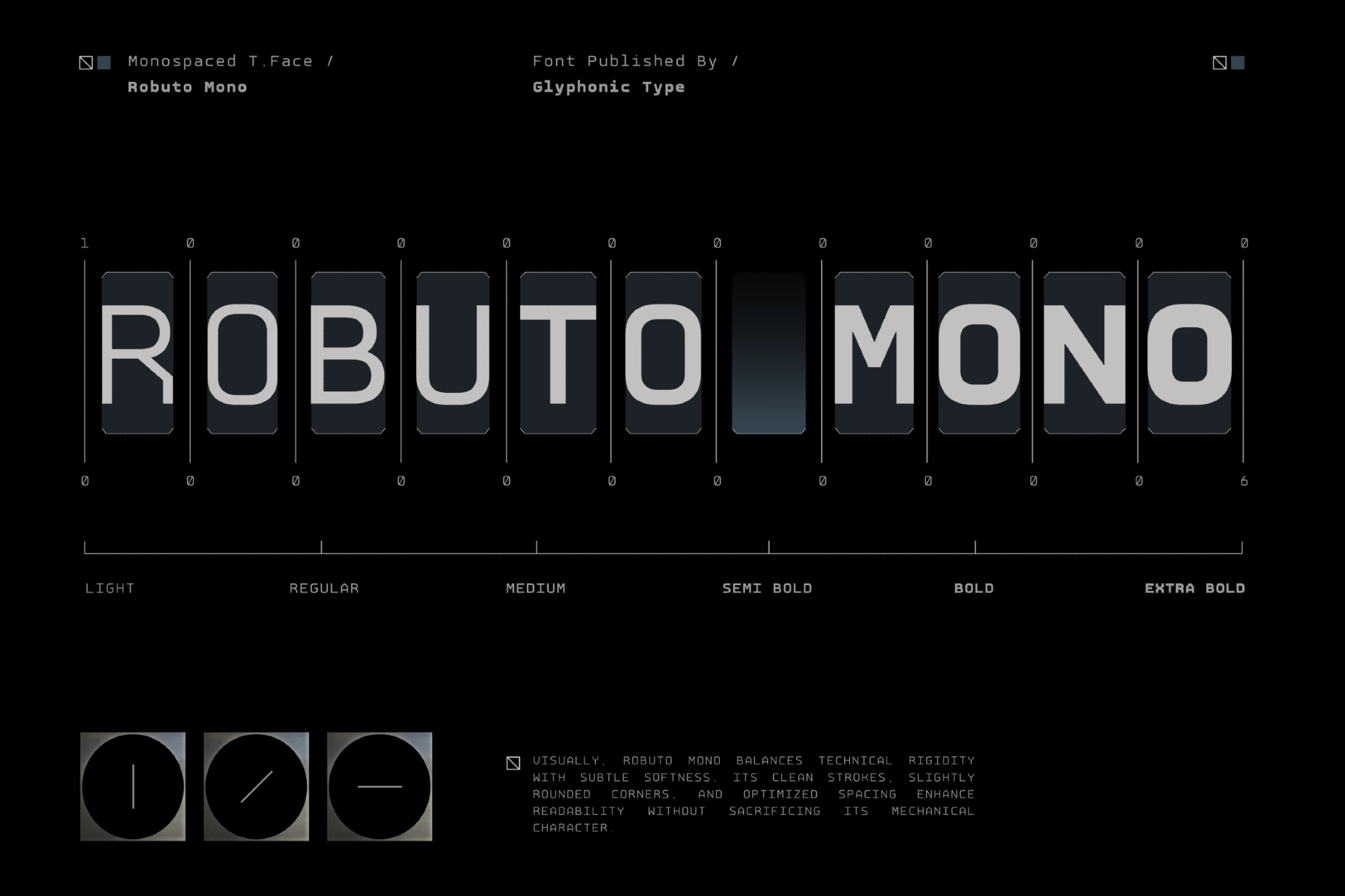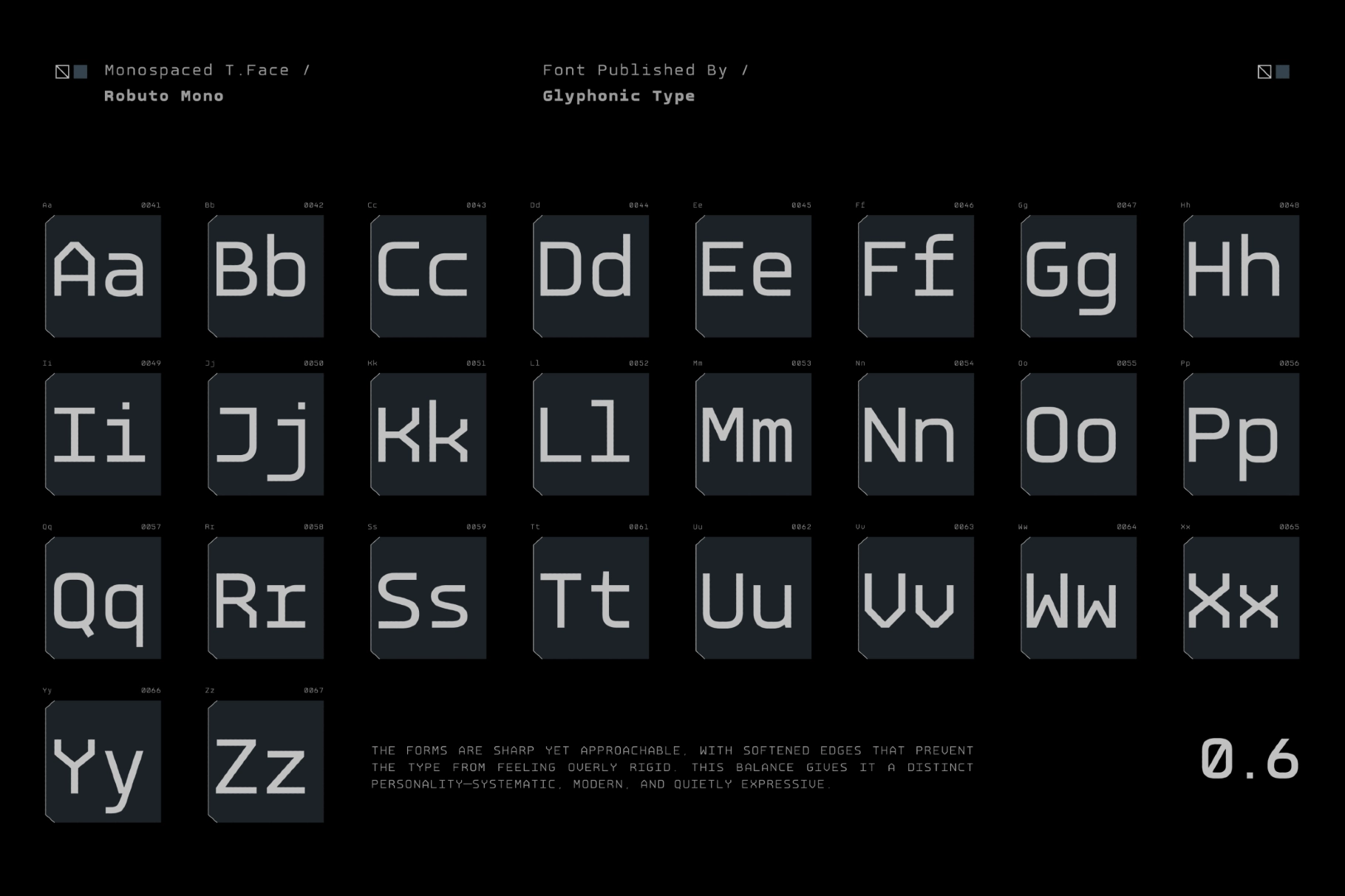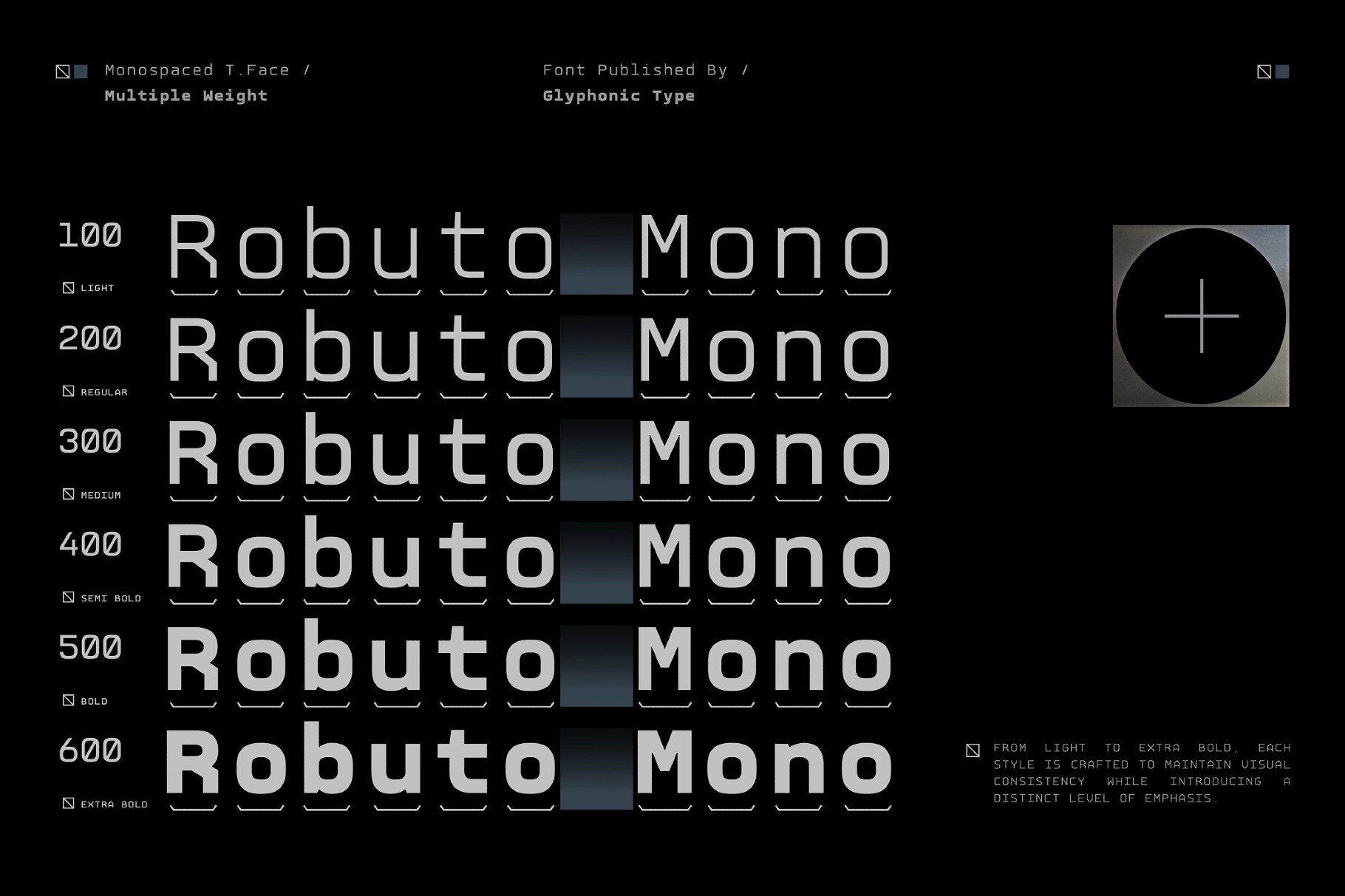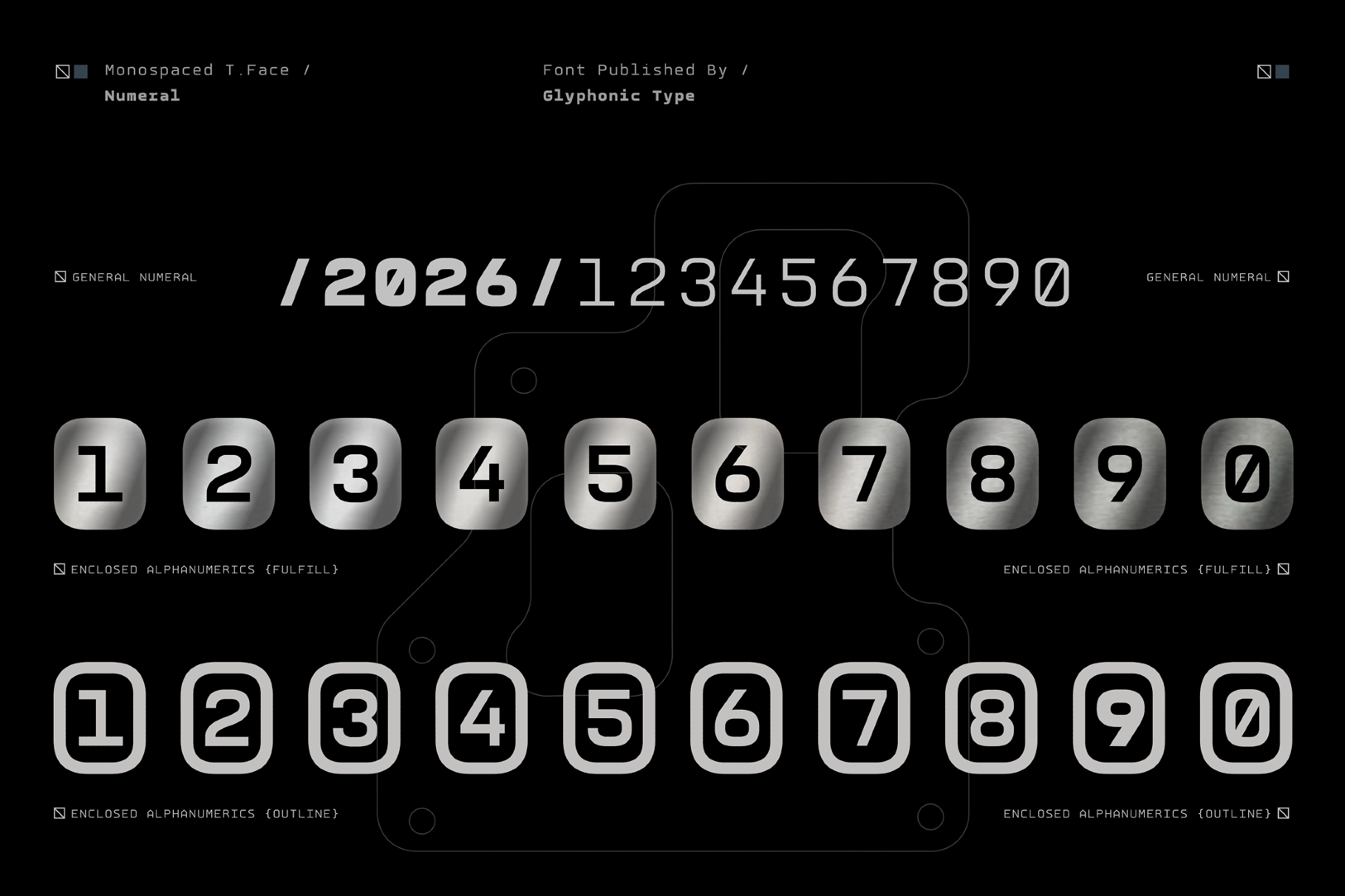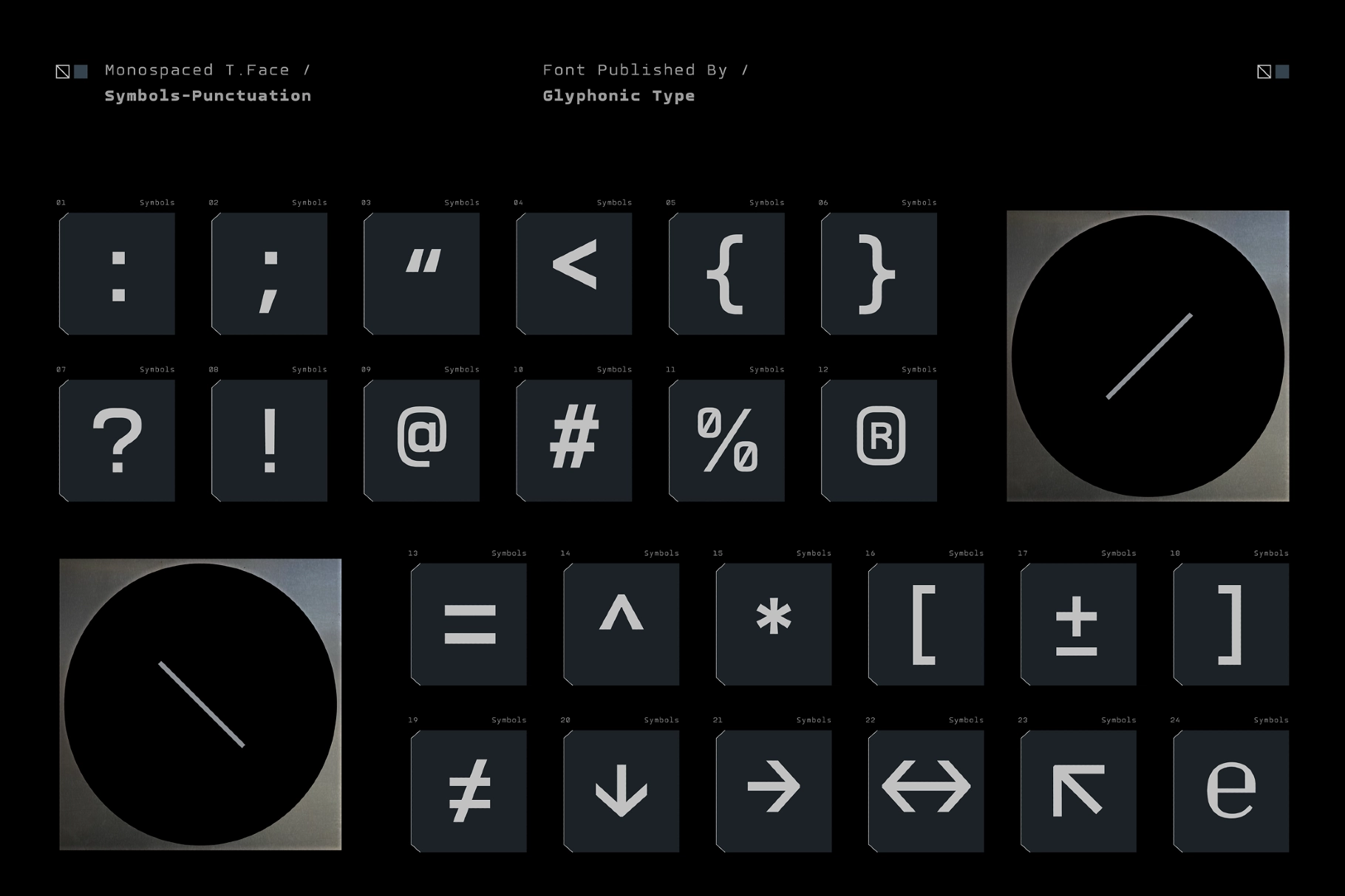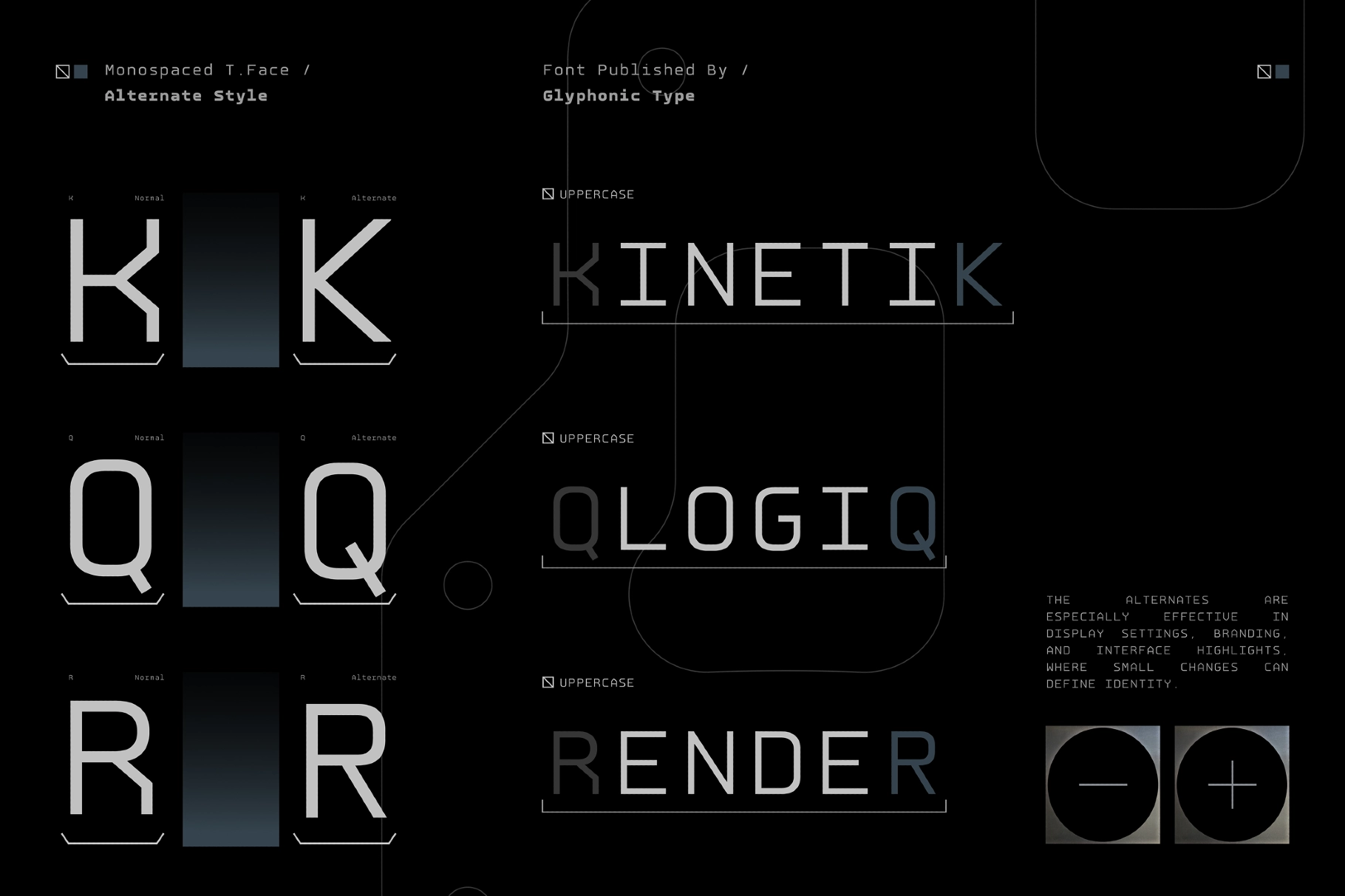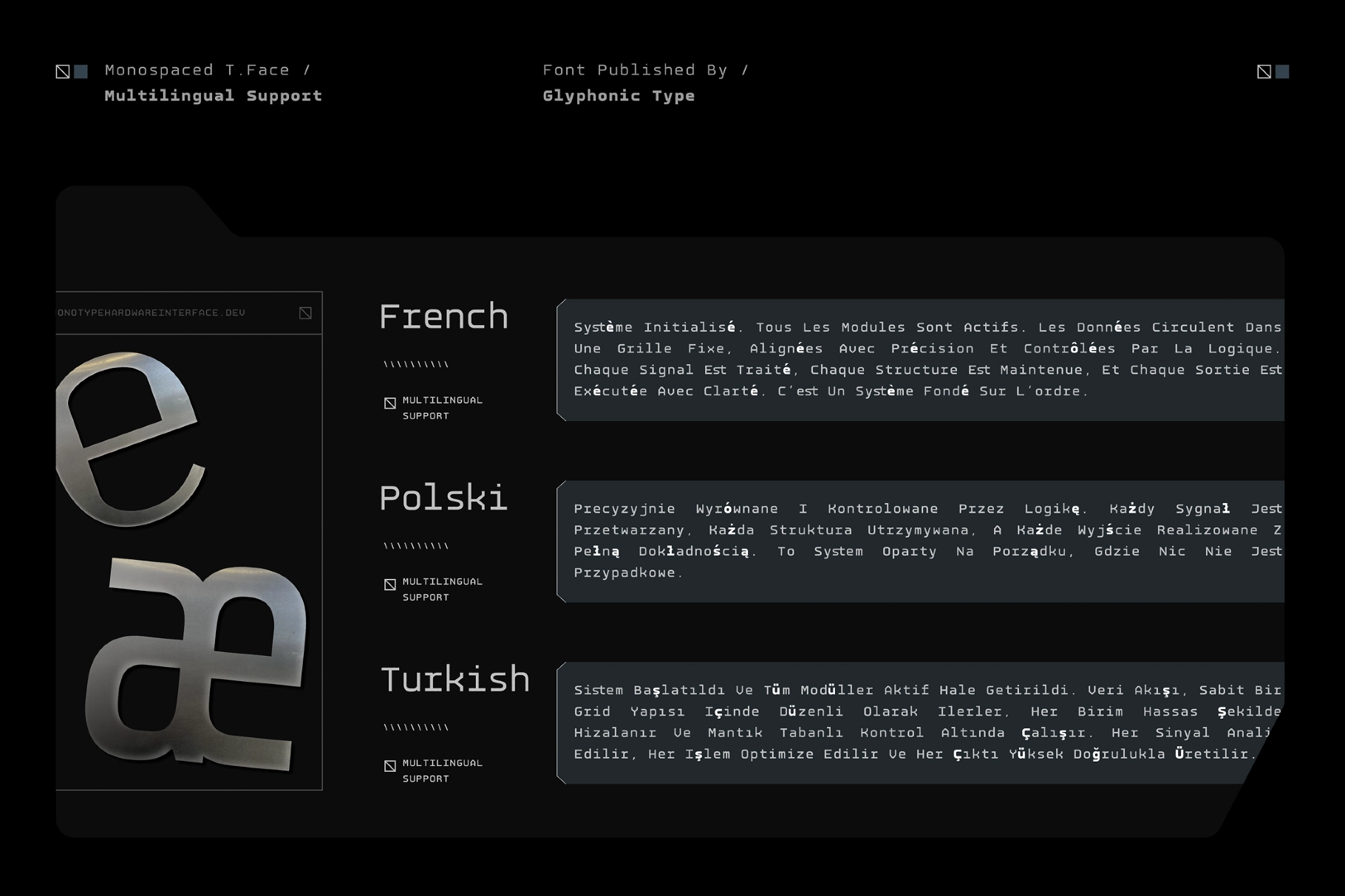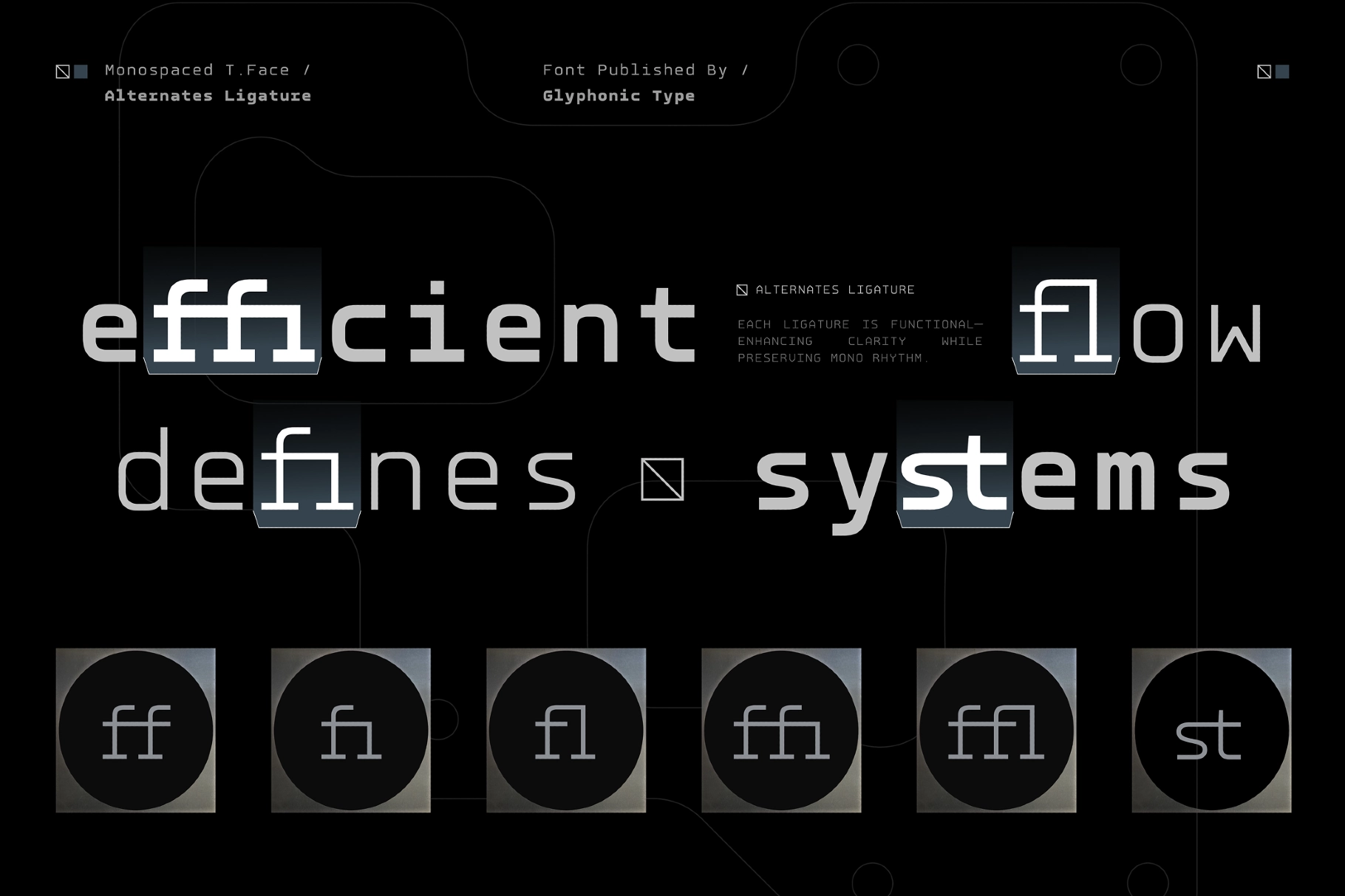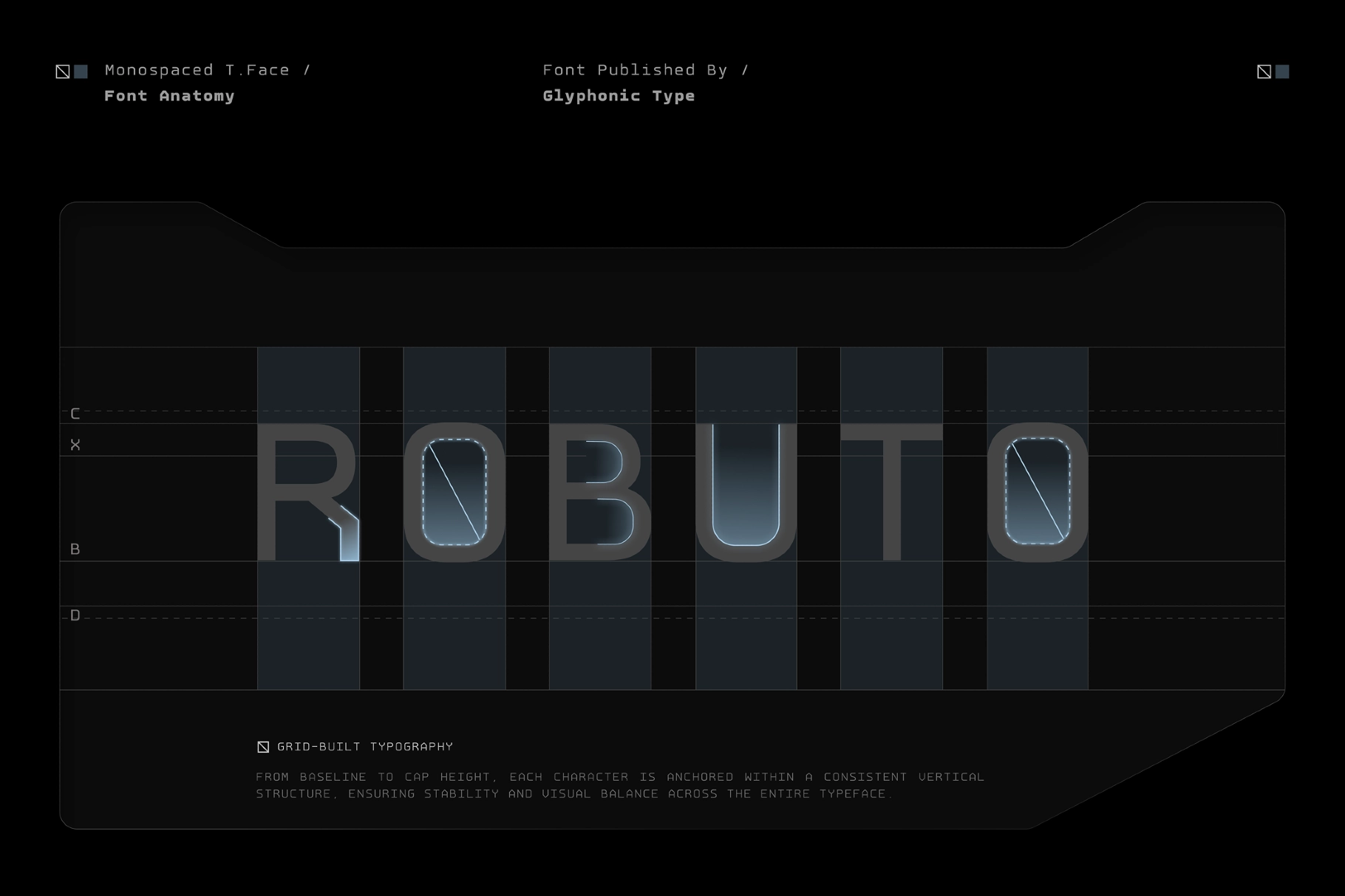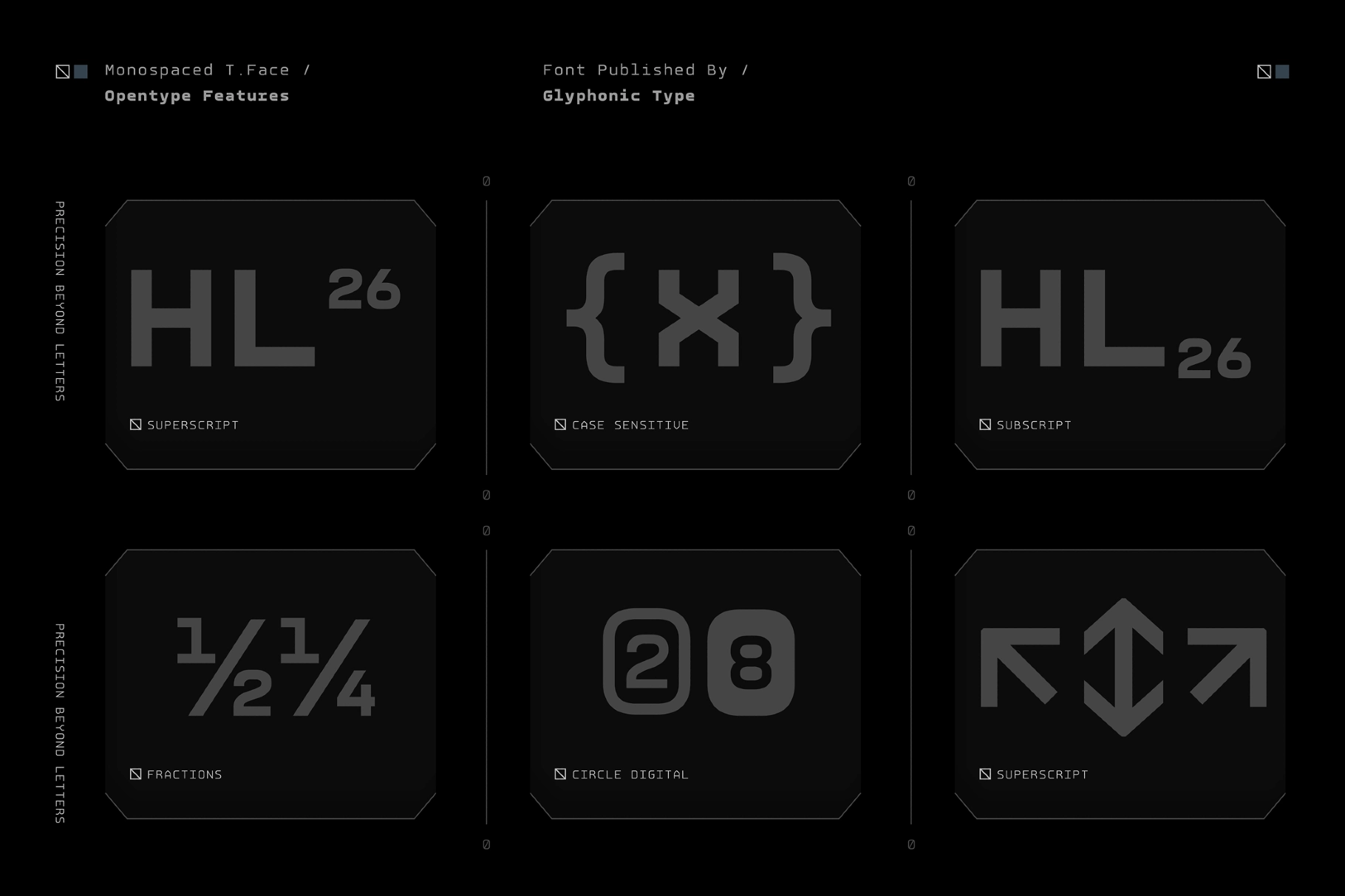
GC Robuto Mono - Tech Monospace Font
This tech monospace typeface combines fixed-width precision with geometric proportions, smooth curves, and sharp detailing. Its structured rhythm gives interfaces, code-inspired layouts, and digital branding a clean technical voice with a polished finish.
Robuto Mono works for software branding, app interfaces, dashboard typography, coding posters, developer portfolios, tech editorials, product landing pages, UI kits, data visuals, startup identities, presentation titles, web headers, and more. The variable weight axis gives designers flexible hierarchy while keeping the consistent spacing that defines a monospace system.
- Variable Font
- Adjustable weight axis
- Geometric letterforms
- Consistent character width
- Multilingual Support: 170+ Languages